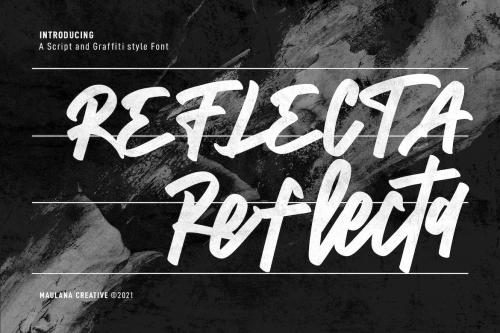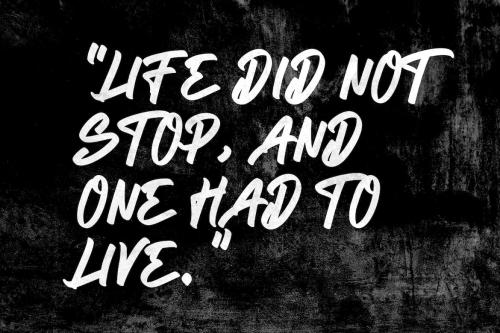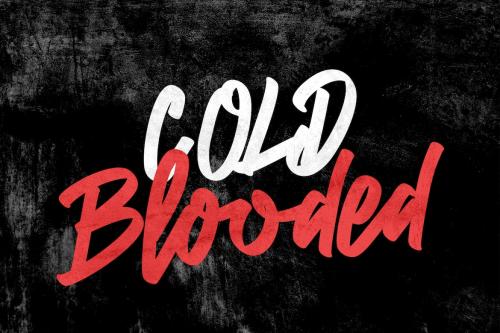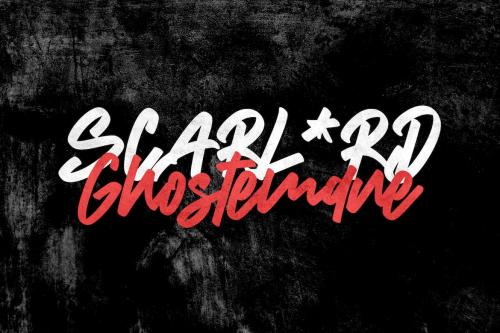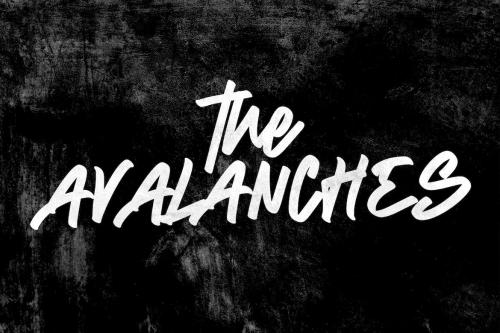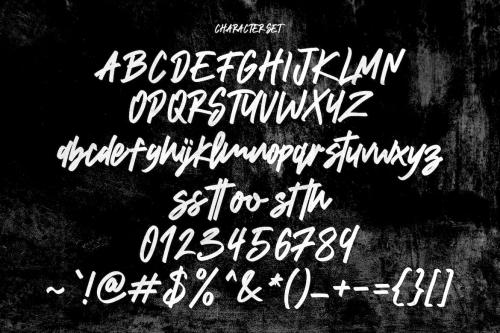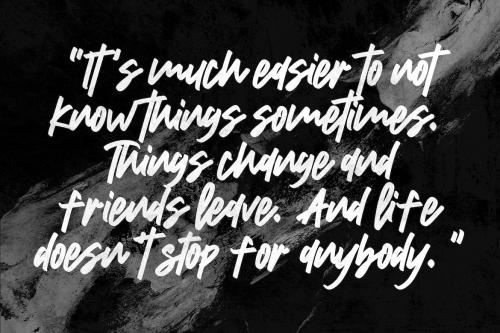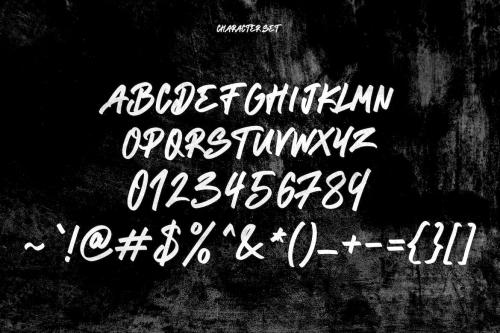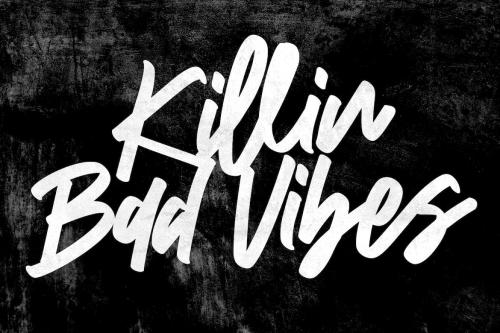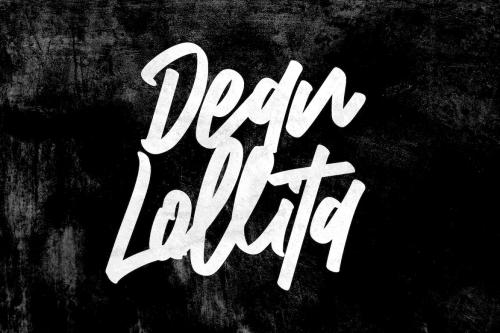
反射体 Graffiti 风格字体
Reflecta Script Graffiti Style Font
Reflecta is a handwritten with graffiti and script style font. With pencil effect stroke, fun character with a bit of ligatures and alternates. To give you an extra creative work. Reflecta font support multilingual more than 100+ language. This font is good for logo design, Social media, Movie Titles, Books Titles, a short text even a long text letter and good for your secondary text font with sans or serif. Make a stunning work with Reflecta font.